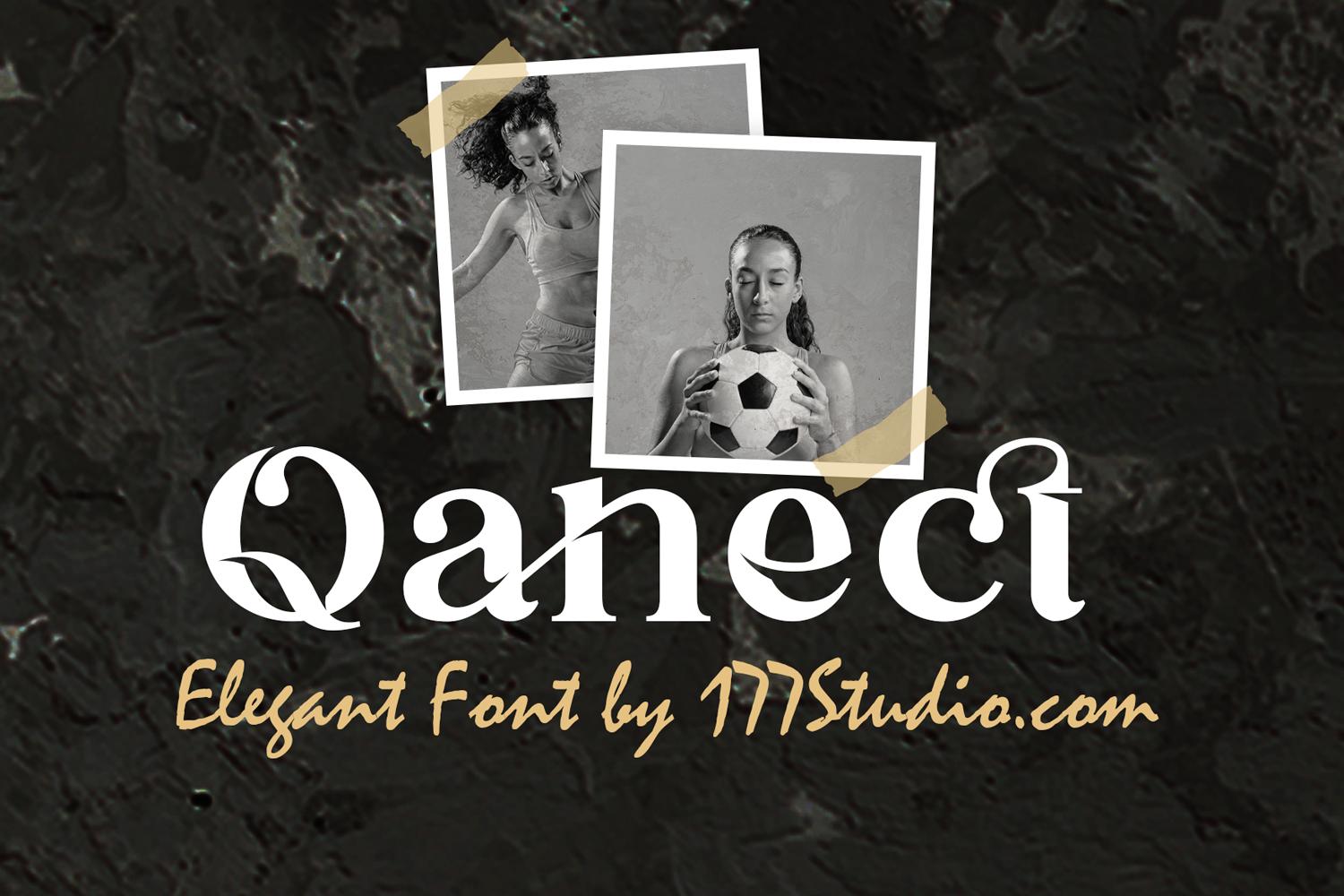
Qanect Elegant Font Description
Qanect Elegant is an elegant and trendy serif font. It is PUA encoded which means you can access all of the glyphs and swashes with ease! Add it confidently to your favorite creations and let yourself be amazed by the outcome generated.